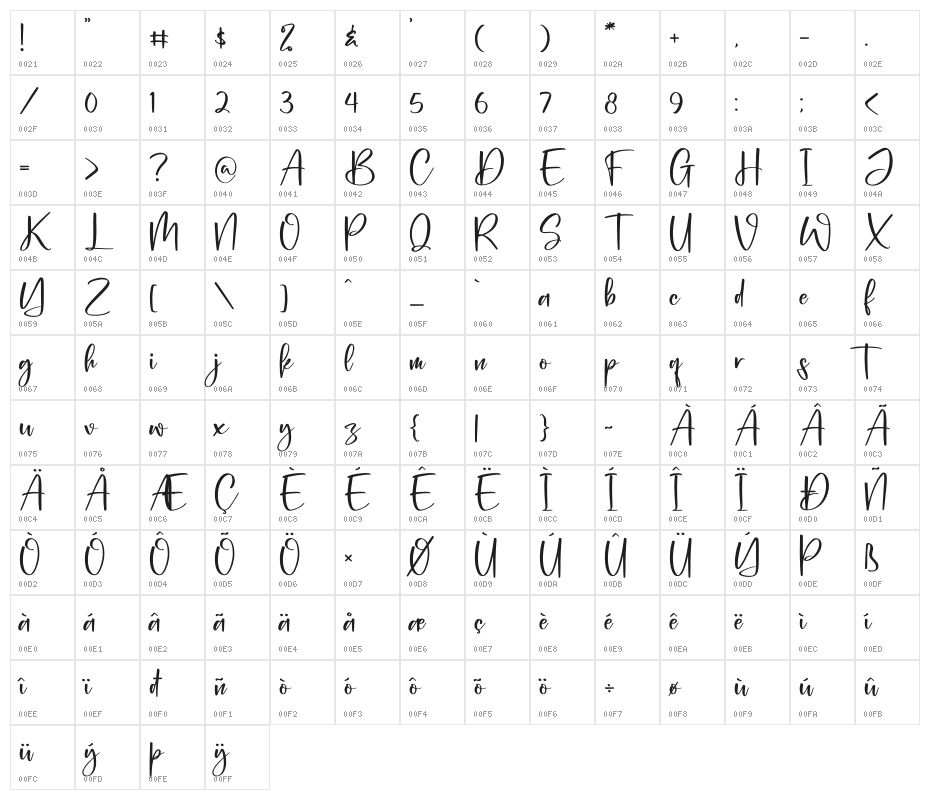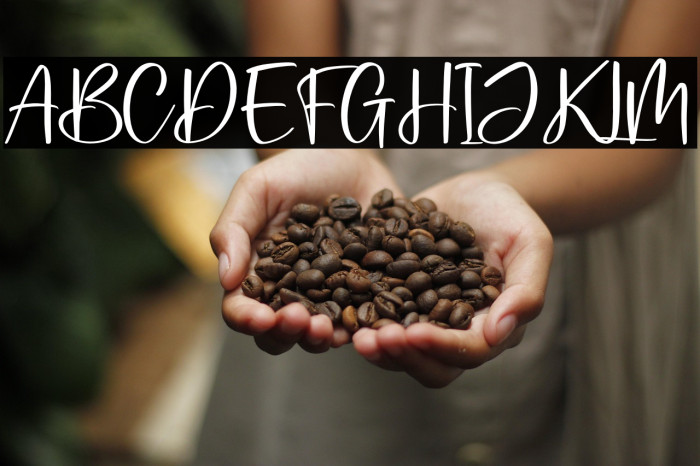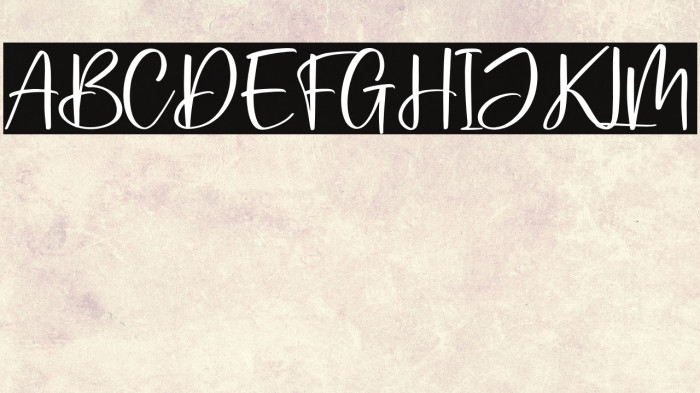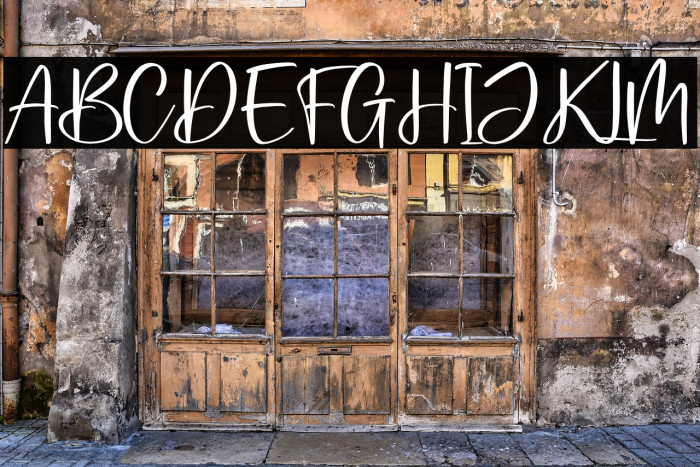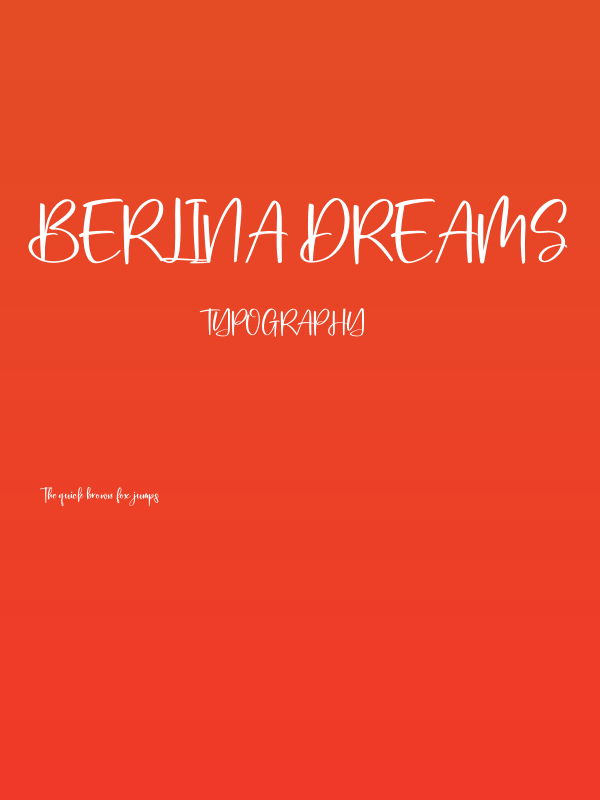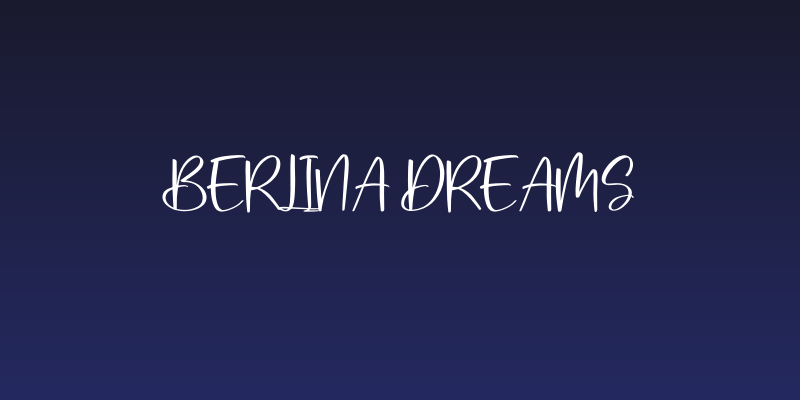
Berlina Dreams Font
Berlina Dreams Description
This font features a playful and elegant script style with a handwritten feel. The uppercase letters are bold and slightly slanted, giving a dynamic and energetic appearance. The lowercase letters are more fluid and connected, enhancing the handwritten aesthetic. The numbers and special characters maintain the same lively and expressive style, making them suitable for creative and informal designs. The overall look is both modern and artistic, perfect for adding a personal touch to any project.
| Proposed Projects | Ideal for wedding invitations, greeting cards, branding projects, and social media graphics. |